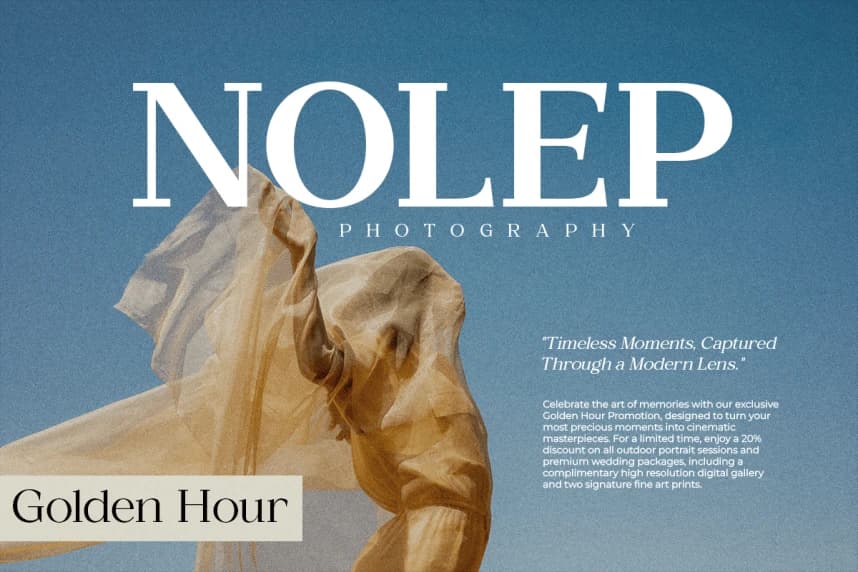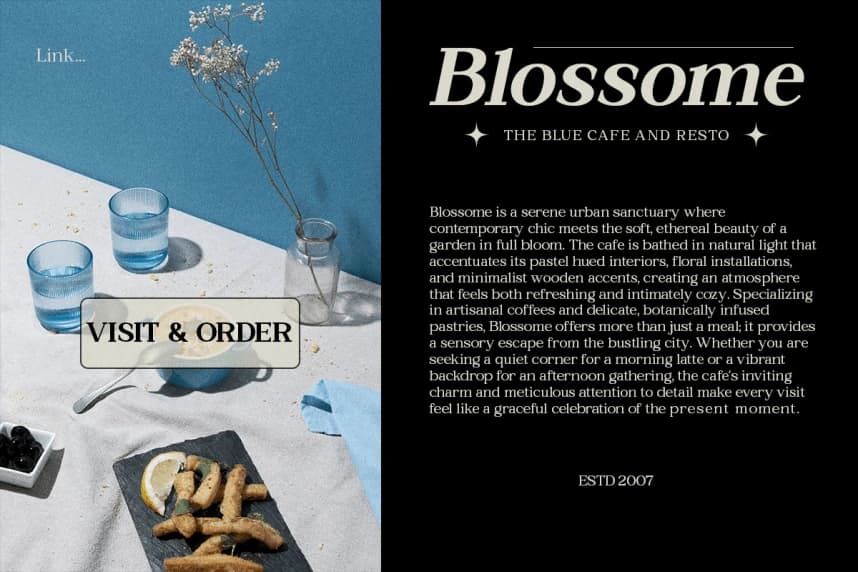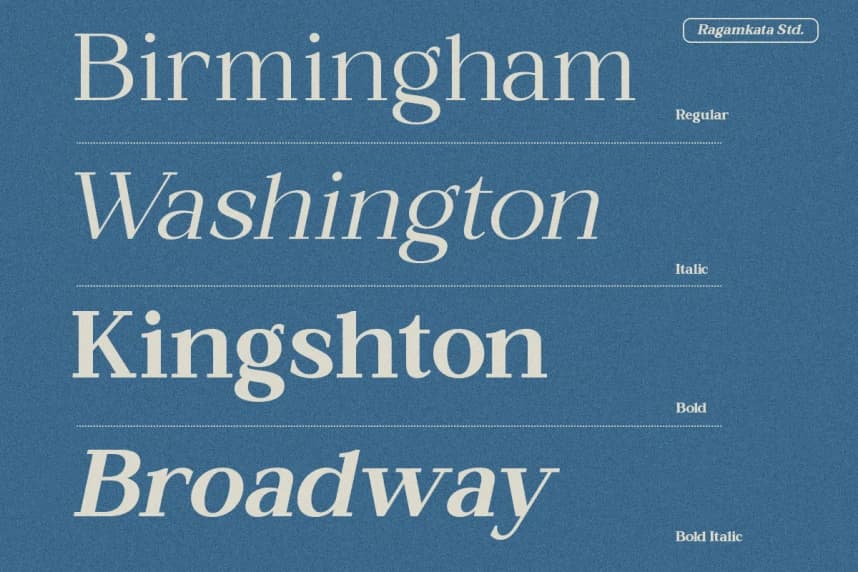
Clusty Font
Clusty Font is a modern serif font that blends elegance with a soft contemporary touch. Designed with refined curves and graceful letterforms, it brings a calm yet sophisticated presence to any design.